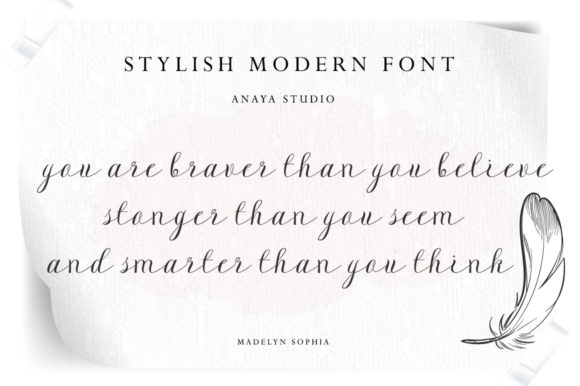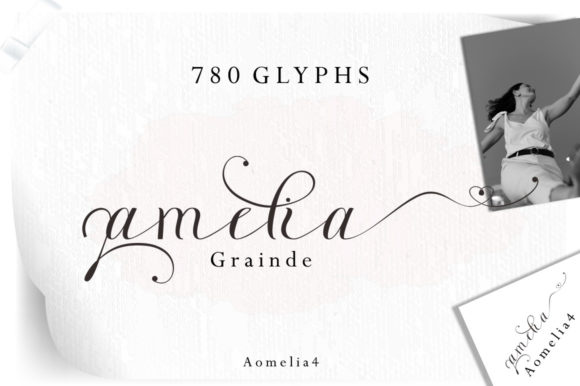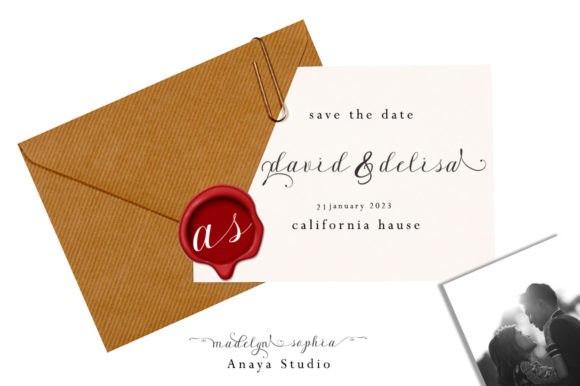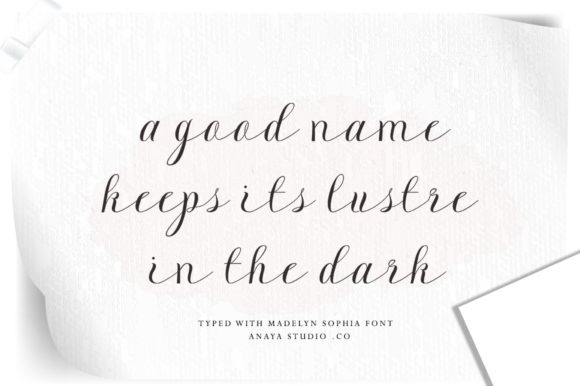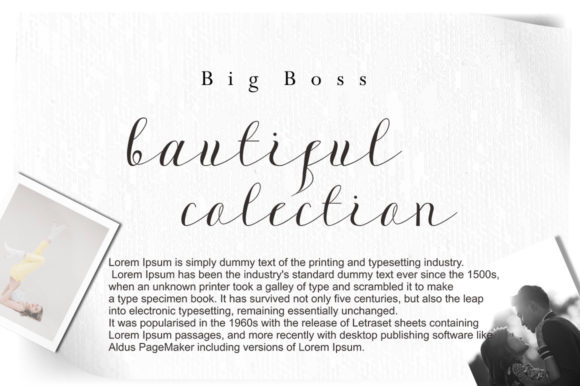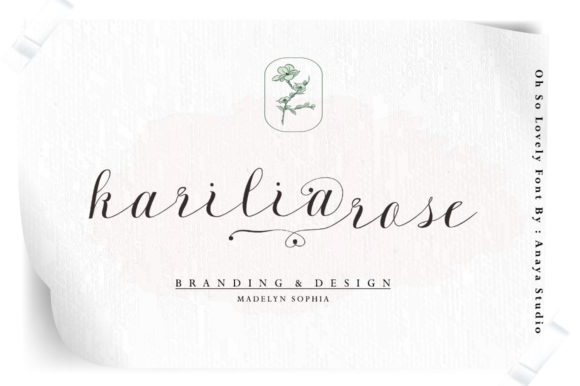
Madelyn Sophia Font
About Madelyn Sophia Font
Madelyn Sophia is an exquisite script font that effortlessly combines delicacy with a sense of fashionable elegance. Its graceful strokes and stylish letterforms make it an ideal choice for a wide range of branding projects, adding a touch of sophistication and creativity to your designs.
With its versatile nature, Madelyn Sophia is well-suited for logos that require a blend of beauty and uniqueness. The font’s flowing script and attention to detail can help create a distinctive visual identity that captures the essence of your brand and leaves a lasting impression on your audience.
T-shirt printing becomes a statement of style with Madelyn Sophia. Whether it’s a catchy slogan, a memorable quote, or a captivating design element, the font’s fashion-forward appearance adds a trendy and chic touch to your apparel creations.
The font’s creative potential extends to a variety of products. From packaging to labels, Madelyn Sophia can infuse your creative products with a sense of elegance and charm, setting them apart from the competition and appealing to discerning customers.
The inclusion of swashes and glyphs through PUA encoding offers you the flexibility to enhance your designs even further. Whether you’re adding decorative elements, flourishes, or unique characters, Madelyn Sophia’s versatility shines through, allowing you to customize and tailor your creations to perfection.
Madelyn Sophia’s delicate and fashionable script is a seamless fit for a wide array of design contexts. Its ability to bring sophistication and style to logos, t-shirt prints, creative products, and more ensures that your projects stand out and make a memorable impact on your target audience.
In summary, Madelyn Sophia is a delicate and fashionable script font that is perfect for a range of branding projects, t-shirt printing, and creative endeavors. Its PUA encoding provides you with access to an array of glyphs and swashes, enhancing your ability to craft stunning and unique designs that capture attention and exude elegance.